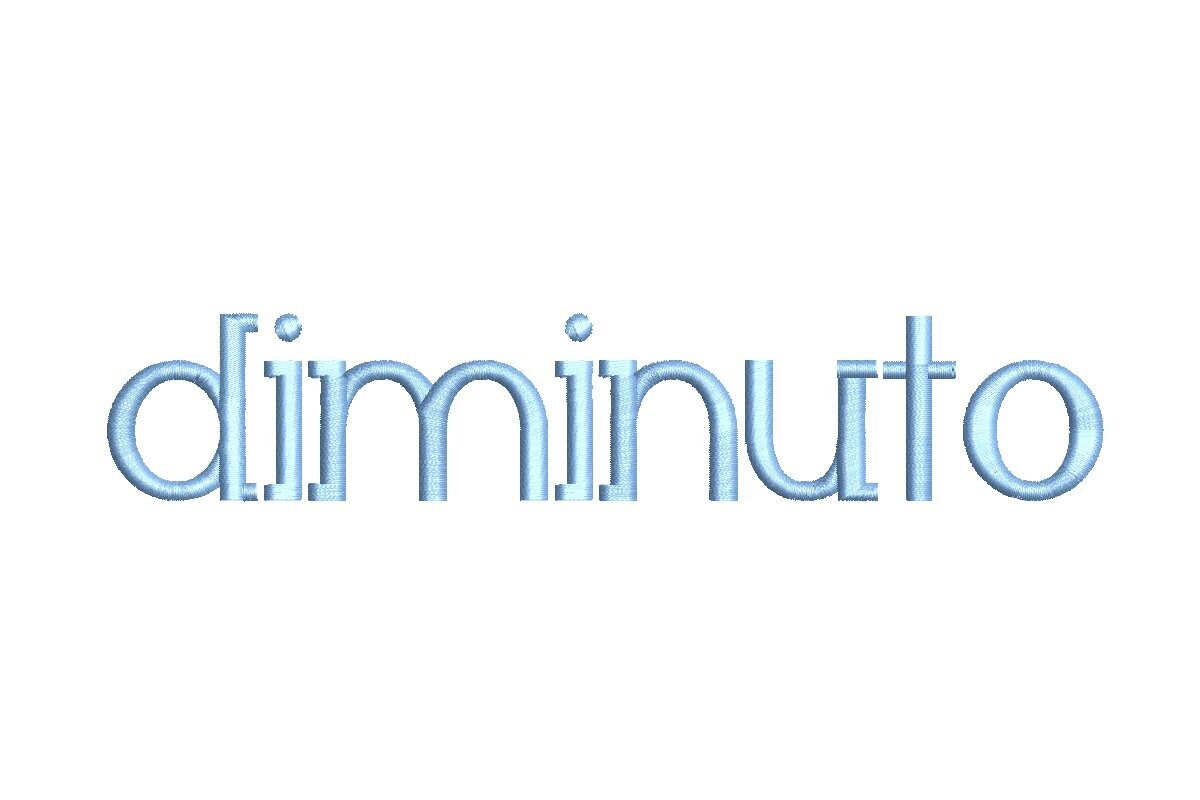
Unveil Diminuto Rg ESA Font - Your Embroidery Elegance Solution! Tailored for flawless compatibility with Wilcom Studio e4.5.6 and Hatch 3 versions and beyond, this font adds a touch of refinement to your embroidery projects. With its subtle, elegant design, it brings sophistication to your creations, ensuring they stand out effortlessly. Achieve professional-level embroidery with ease, thanks to this user-friendly digitized font that guarantees precision in every stitch. Dive into a world of limitless creative opportunities with Diminuto Rg ESA Font and elevate your Wilcom Studio and Hatch software. Choose elegance over ordinary - upgrade now for embroidery excellence.